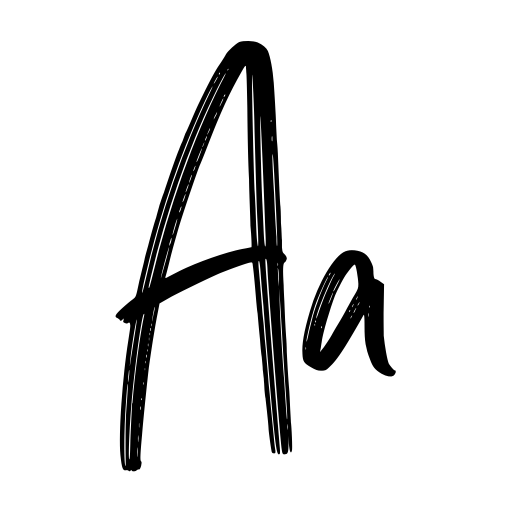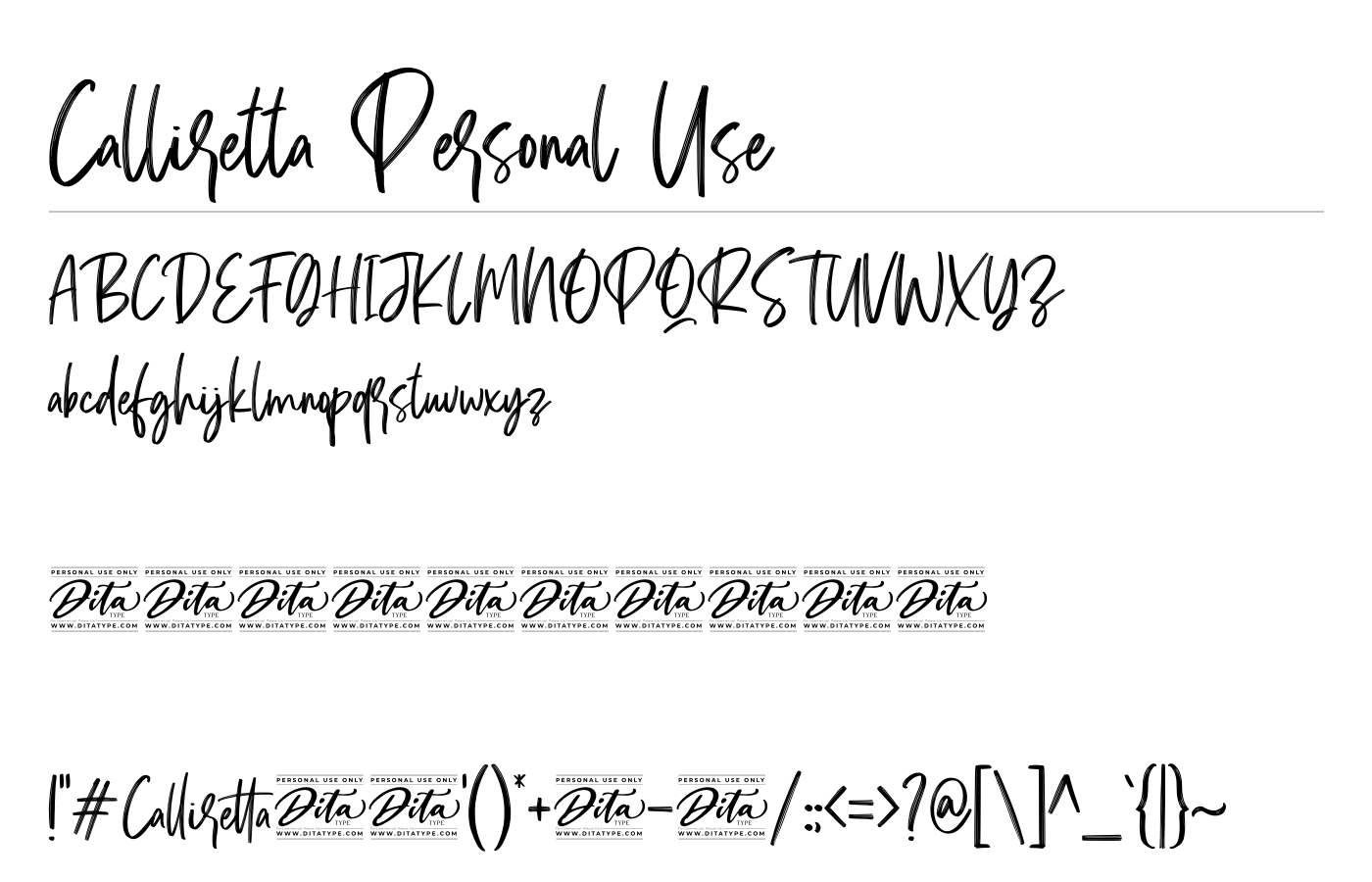
Calliretta Personal Use is a lively handwritten script font with a casual, playful feel that mimics natural brush strokes. Its tall, slender letterforms with varied stroke widths bring an organic and expressive quality, making it perfect for creative projects, invitations, and lifestyle branding that seek a friendly, personal touch. This font works well in headlines and logos where a spontaneous, hand-crafted look is desired.
Calliretta Personal Use Font
About Calliretta Personal Use Font